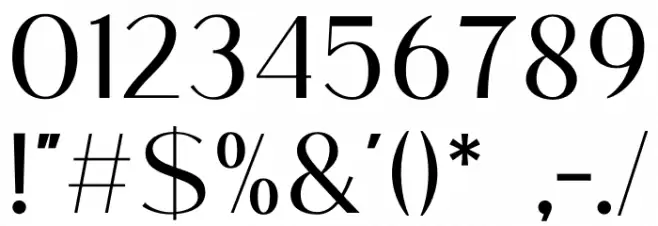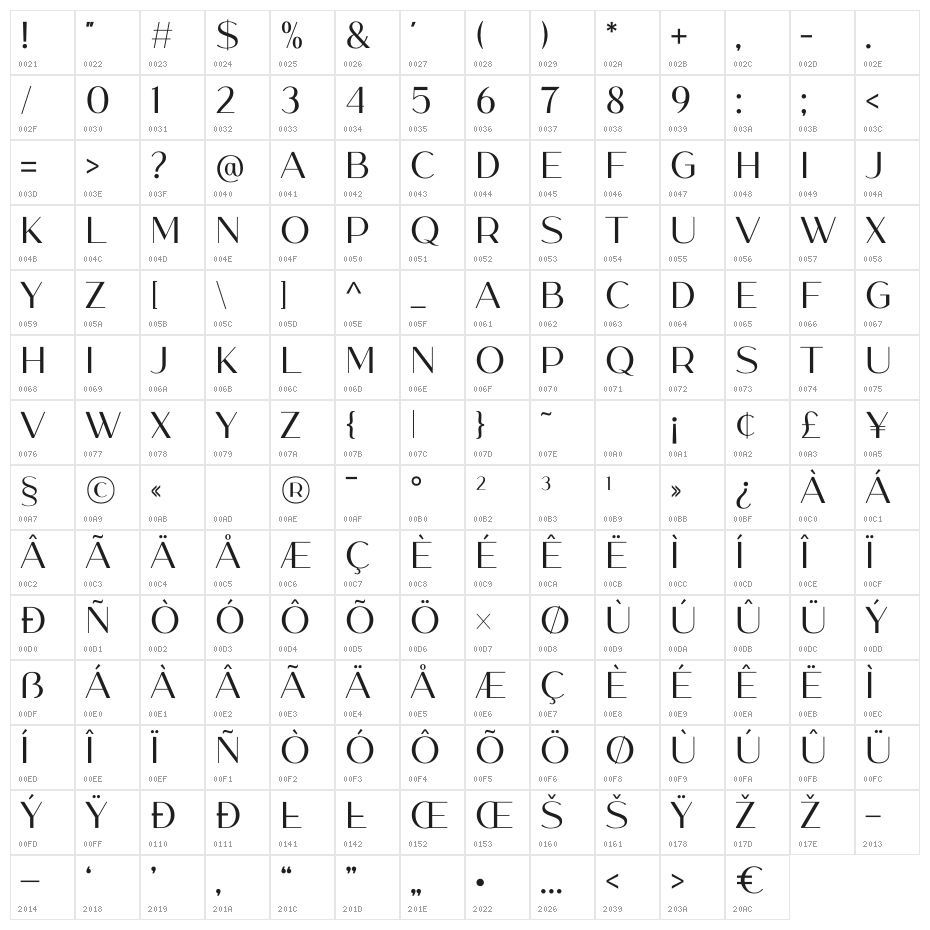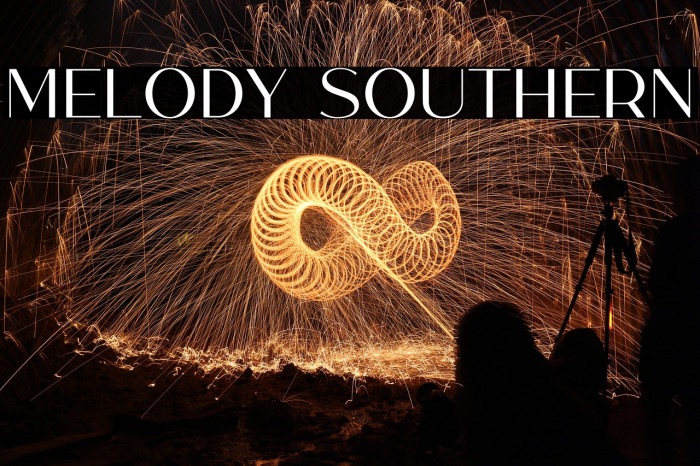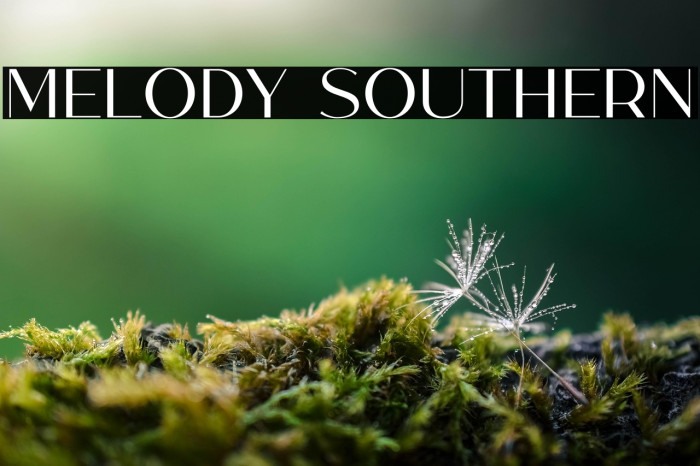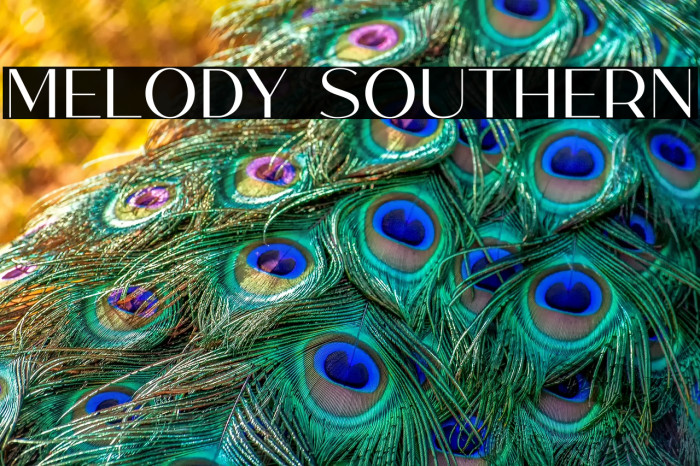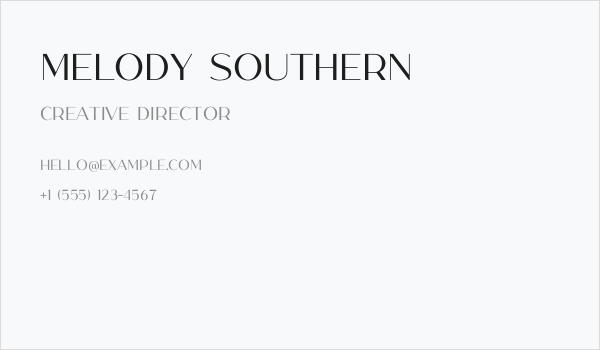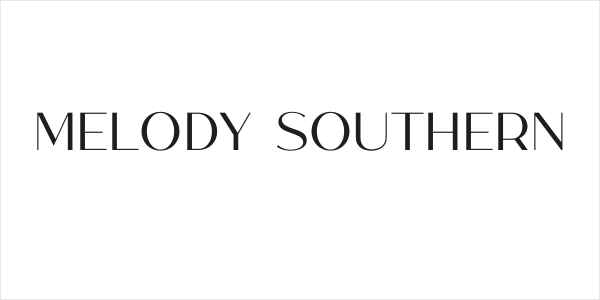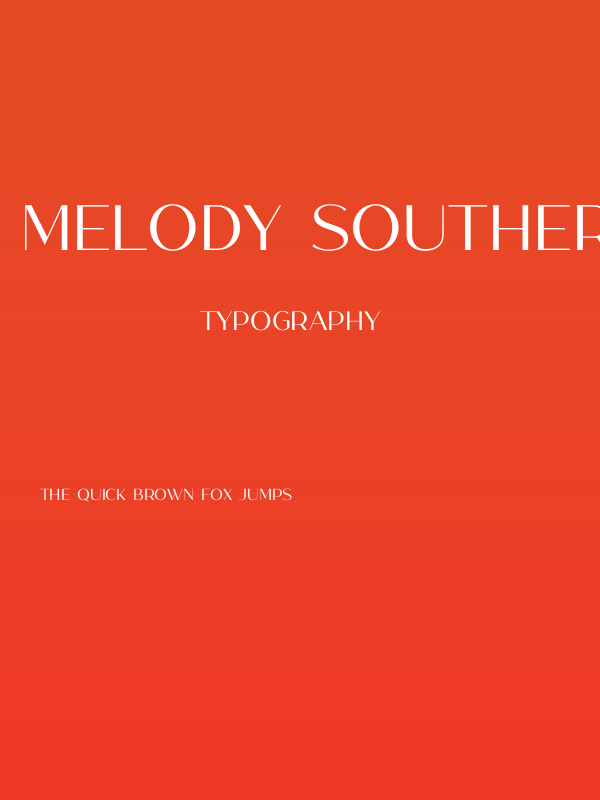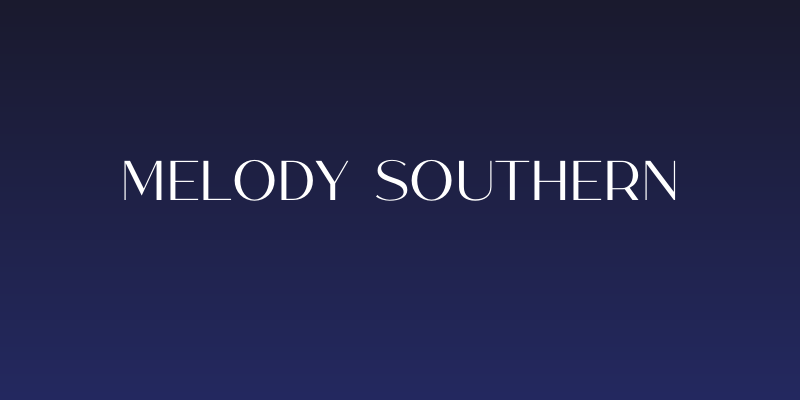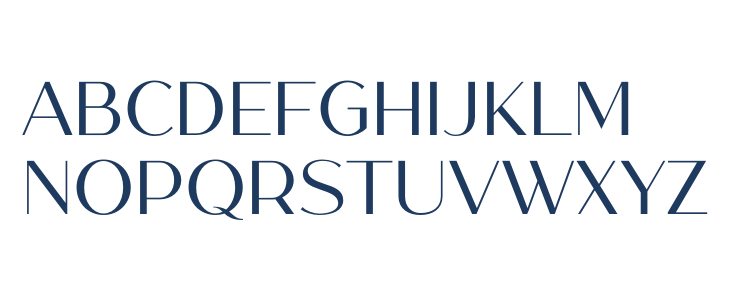
Melody Southern Font
Melody Southern Description
This font features a sleek and elegant design with a modern touch. The characters are crafted with a high contrast between thick and thin strokes, giving it a sophisticated and stylish appearance. The uppercase letters are tall and slender, while the lowercase letters maintain a consistent flow with slightly rounded edges. The numerals are well-proportioned, complementing the overall aesthetic. Special characters are designed with the same attention to detail, ensuring a cohesive look across all glyphs. This font is perfect for projects that require a refined and contemporary feel.
| Proposed Projects | Ideal for luxury branding, fashion magazines, elegant invitations, and high-end product packaging. |